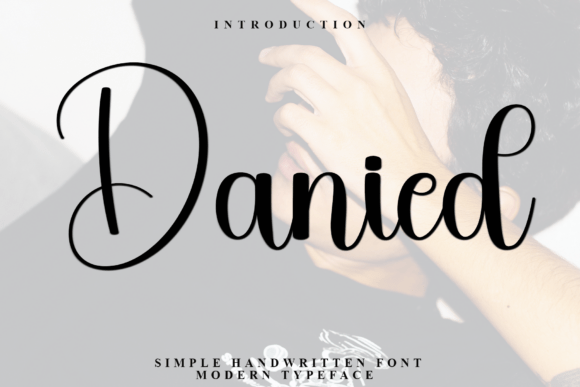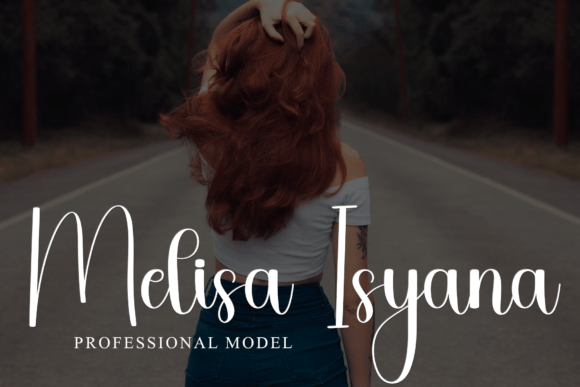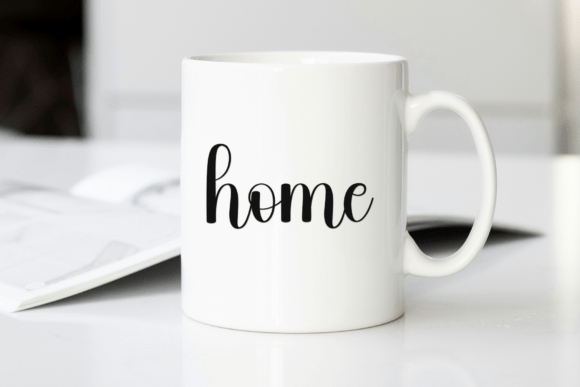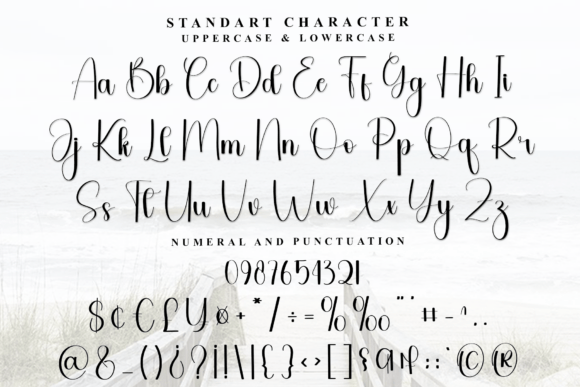
Danied Font
About the Danied Font
Elevate your designs with Danied Font, a font that combines sophistication with readability. Danied is a casual and creative font that exudes warmth and friendliness. Its round, playful strokes create a relaxed and approachable feel, perfect for personal projects, invitations, and social media graphics. The font’s charming, hand-drawn aesthetic adds a fun and unique touch to any design.
Danied’s playful character makes it ideal for headlines, short-form content, branding for children’s products or playful brands, and social media posts. It also works well on packaging for items emphasizing fun and approachability. However, its casual nature makes it less suitable for body text, long paragraphs, or applications requiring high readability, such as UI elements or legal documents.
Pairing Danied effectively requires a contrasting font to balance its informality. A clean sans-serif like Open Sans or Lato would provide a solid, legible counterpoint for body text. For a more sophisticated pairing, consider a classic serif like Garamond or a more geometric sans-serif like Montserrat for a modern touch.
Danied’s overall personality is best described as friendly and approachable, with a touch of whimsical charm. Its informal energy is well-suited to projects that prioritize a warm and inviting aesthetic.
Danied Font Example